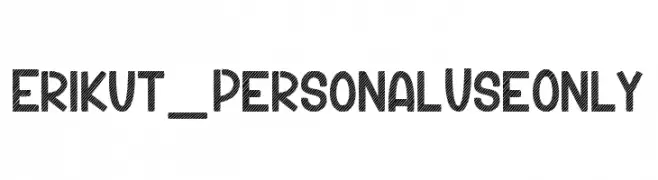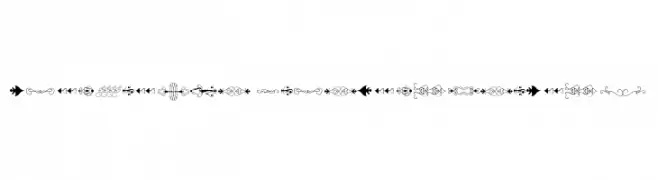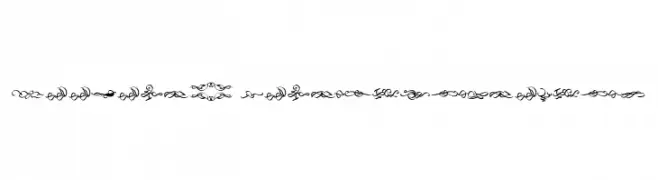
A bold, rounded font with a playful and friendly style.
A futuristic and angular decorative font with a runic appearance.
An intricate decorative font with elaborate ornamental designs.
A bold, geometric font with a modern, blocky style.
A bold, classic serif font with high contrast and elegant details.
A high-contrast serif font with elegant, sharp serifs and a classic style.
An ornate, decorative font with intricate swirls and flourishes.
Highly decorative ornamental flourish font for embellishments.
A bold, playful font with rounded edges and a cohesive, friendly style.
A bold, modern font with a unique diagonal stripe pattern.